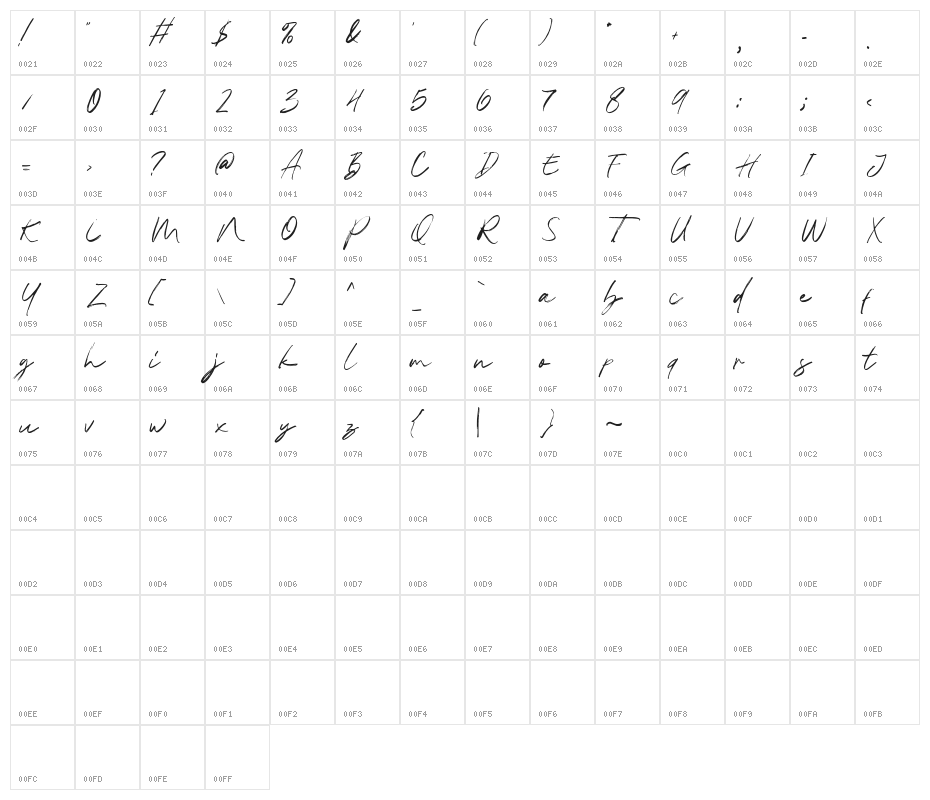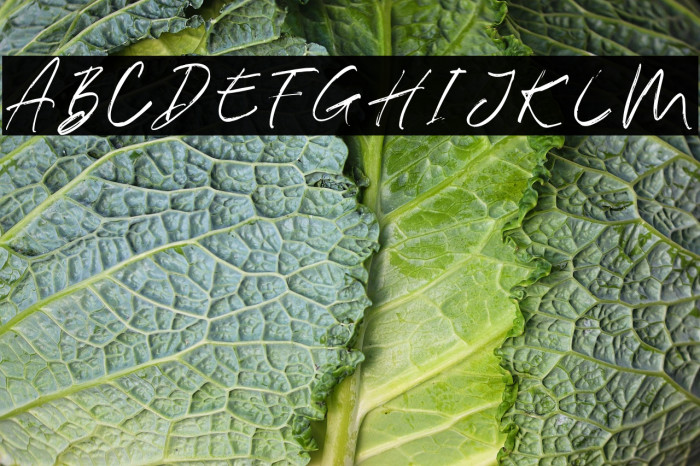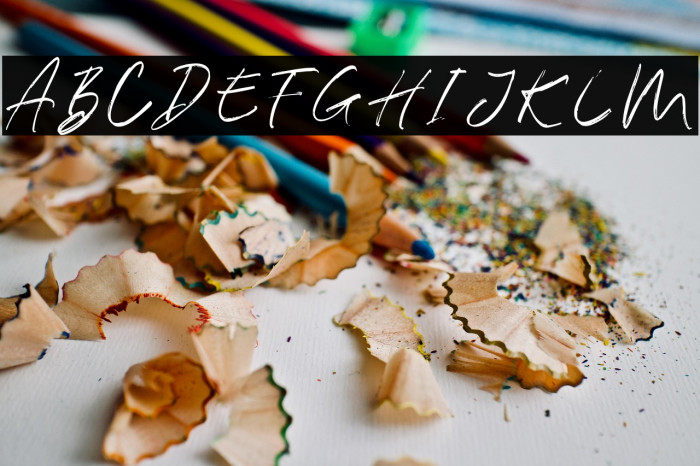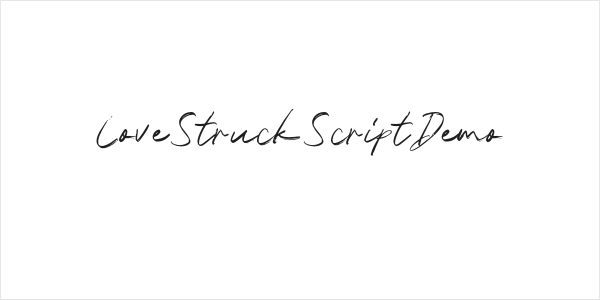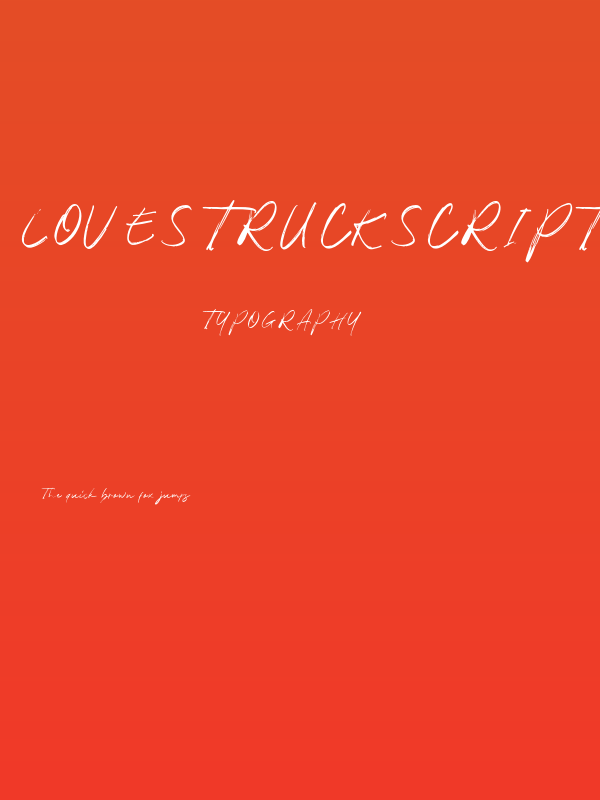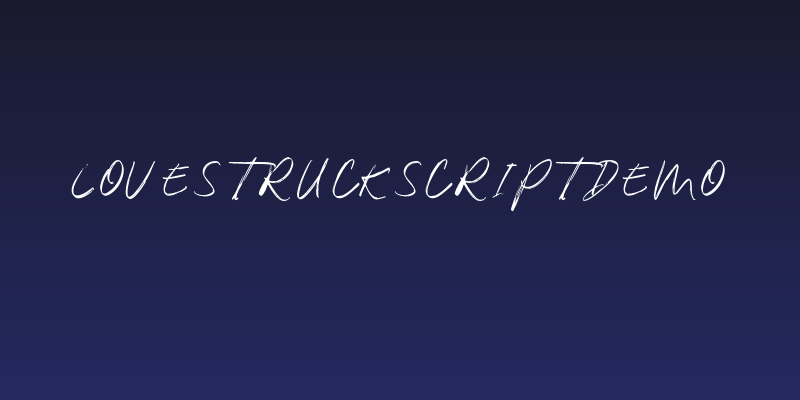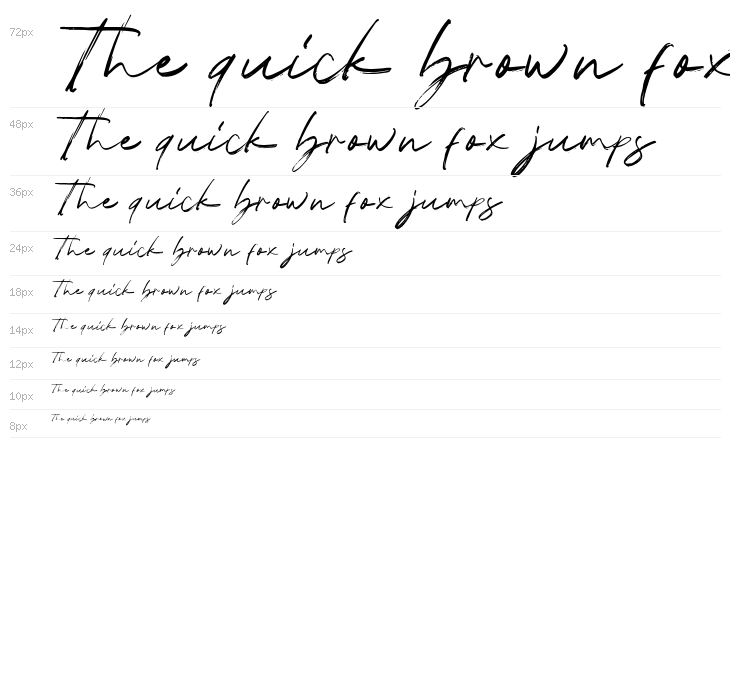
LoveStruckScriptDemo Font
LoveStruckScriptDemo Description
This font exudes a lively and expressive character, with its fluid and dynamic strokes that mimic the natural flow of handwriting. The letters are elegantly connected, giving a sense of continuity and movement. The varying thickness in the strokes adds a touch of sophistication and charm, making it visually appealing. The uppercase letters are slightly more structured, while the lowercase letters exhibit a more freeform style, enhancing the overall organic feel. The numerals and special characters maintain the same energetic style, ensuring consistency throughout. This font is perfect for projects that require a personal and artistic touch.